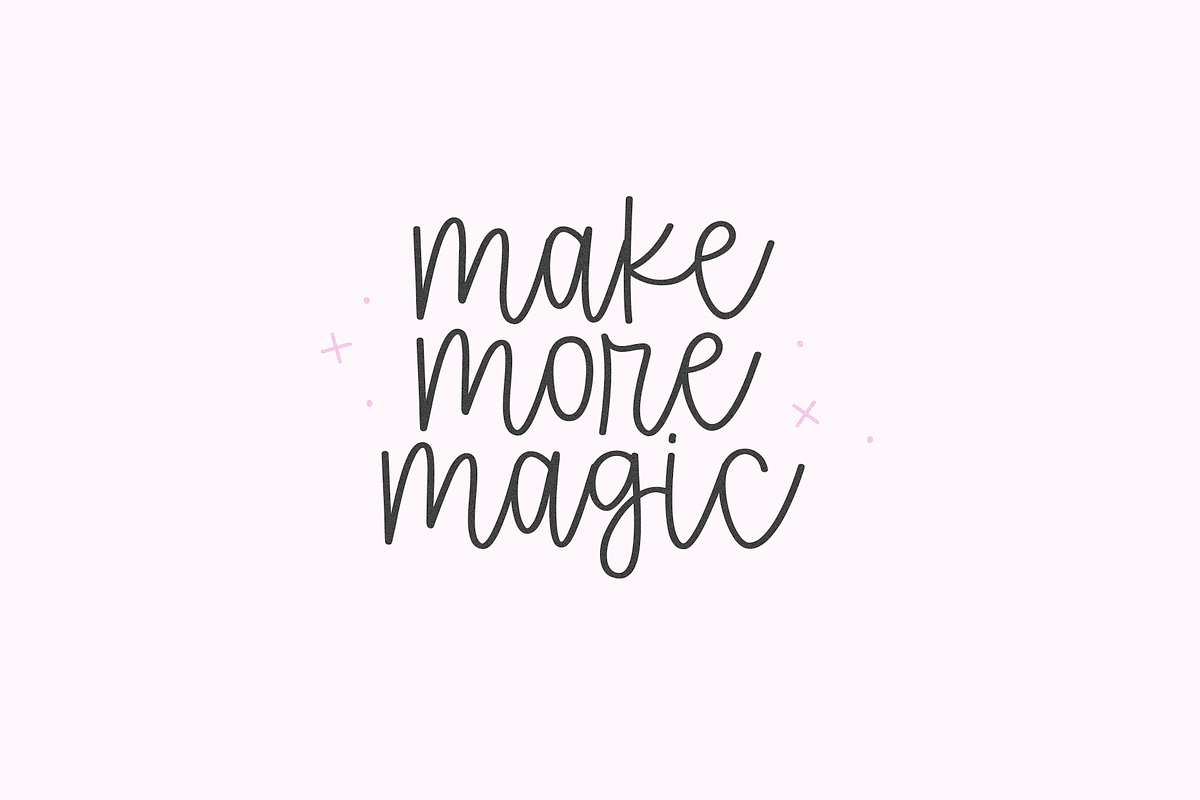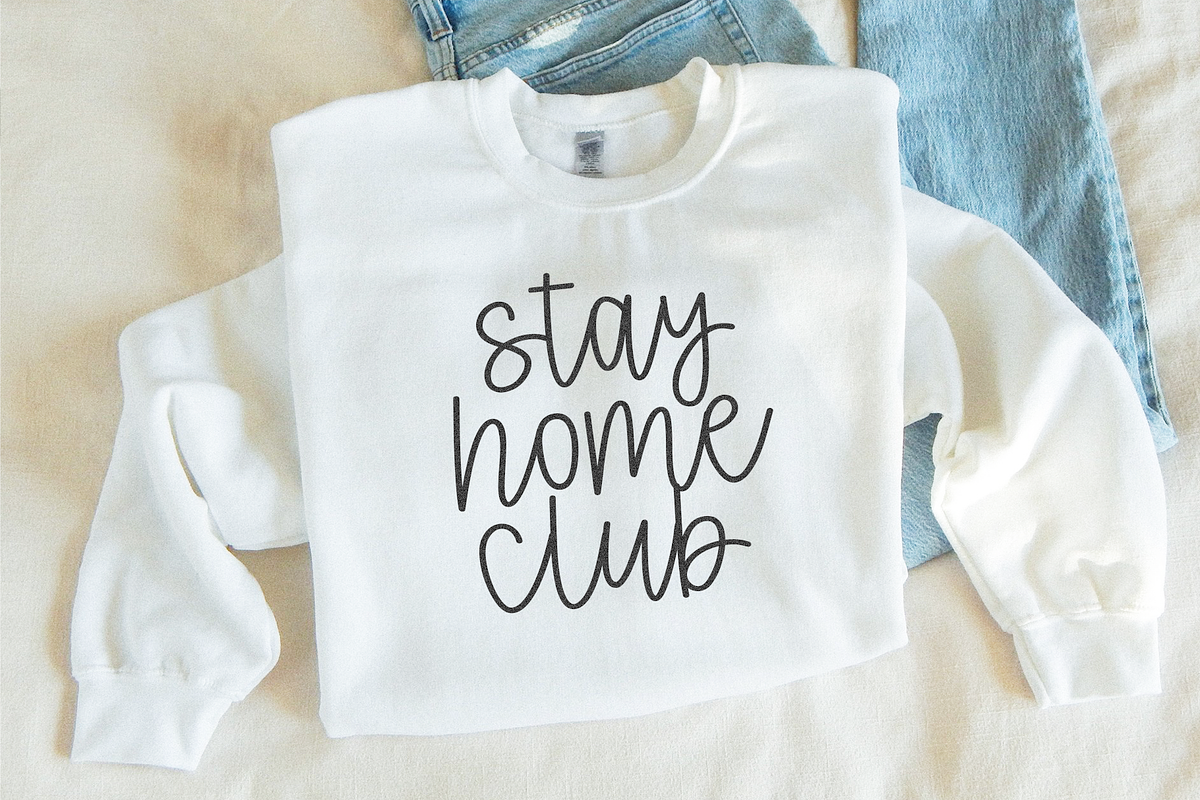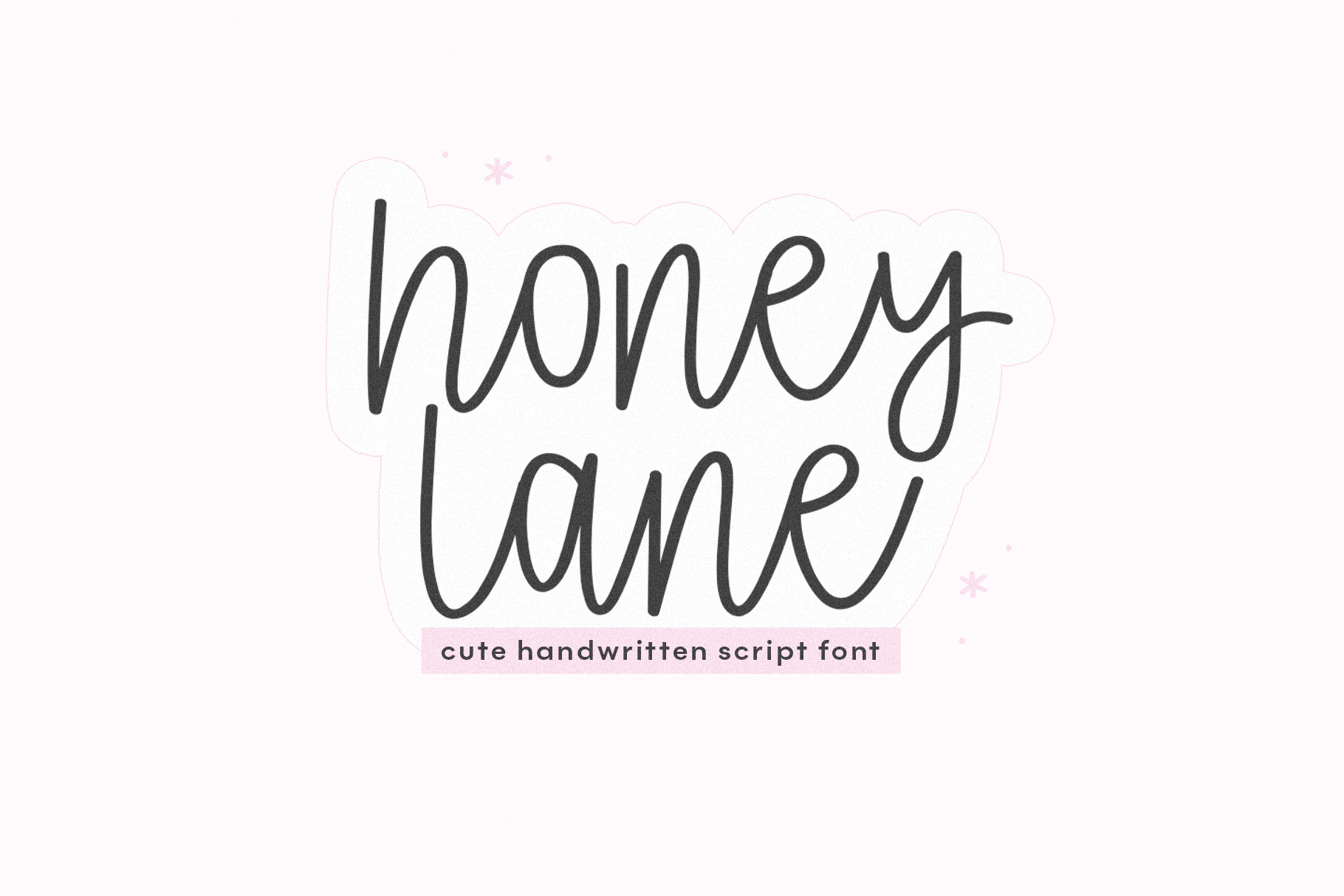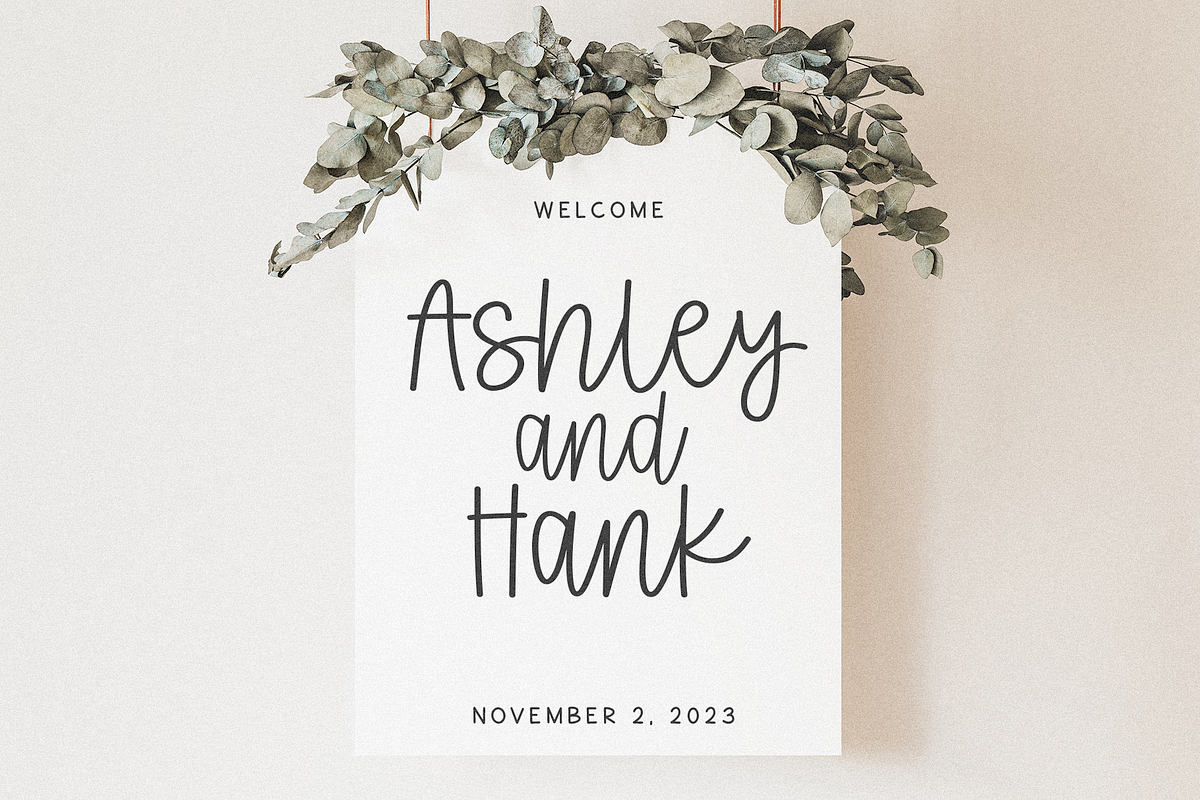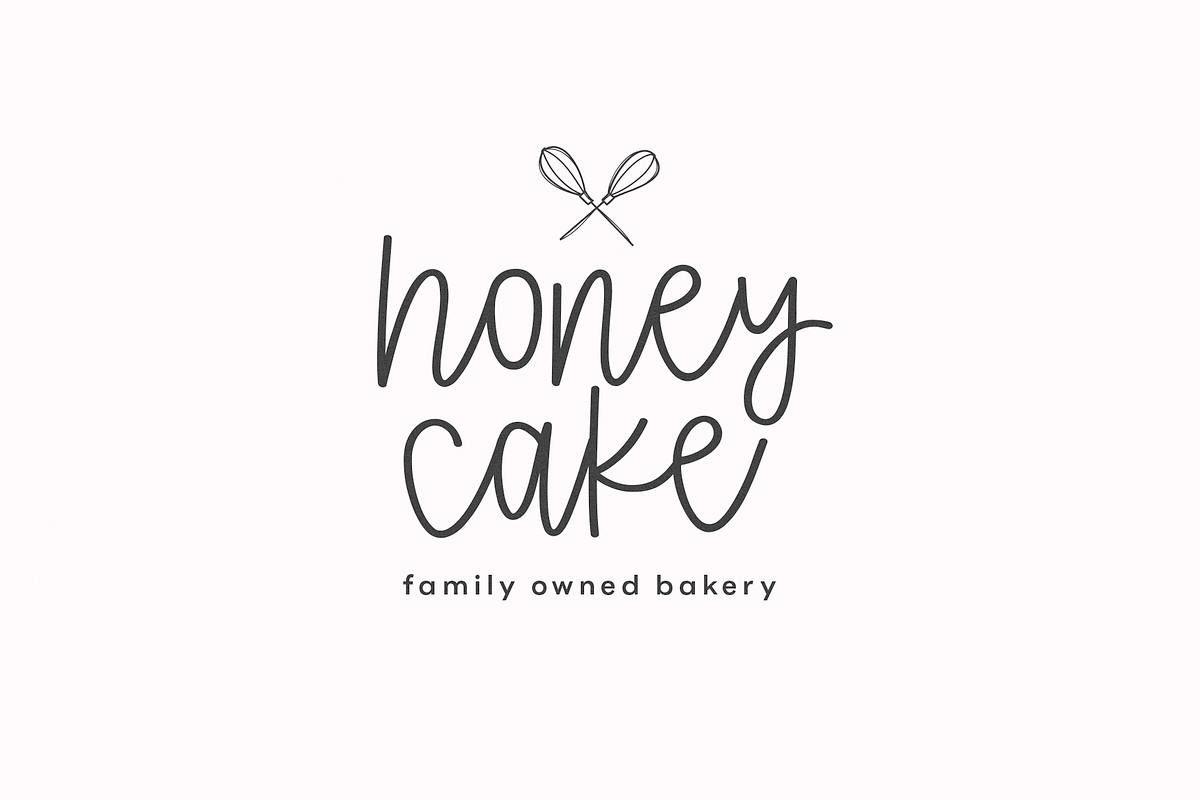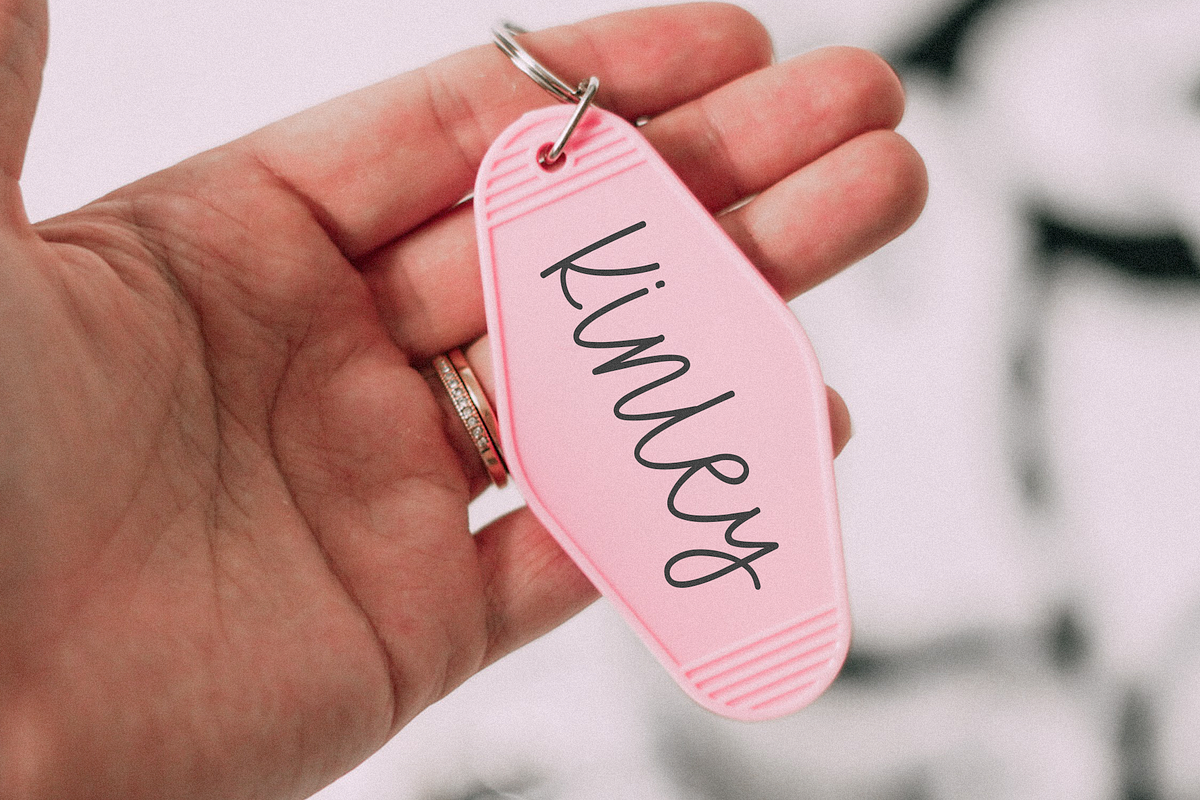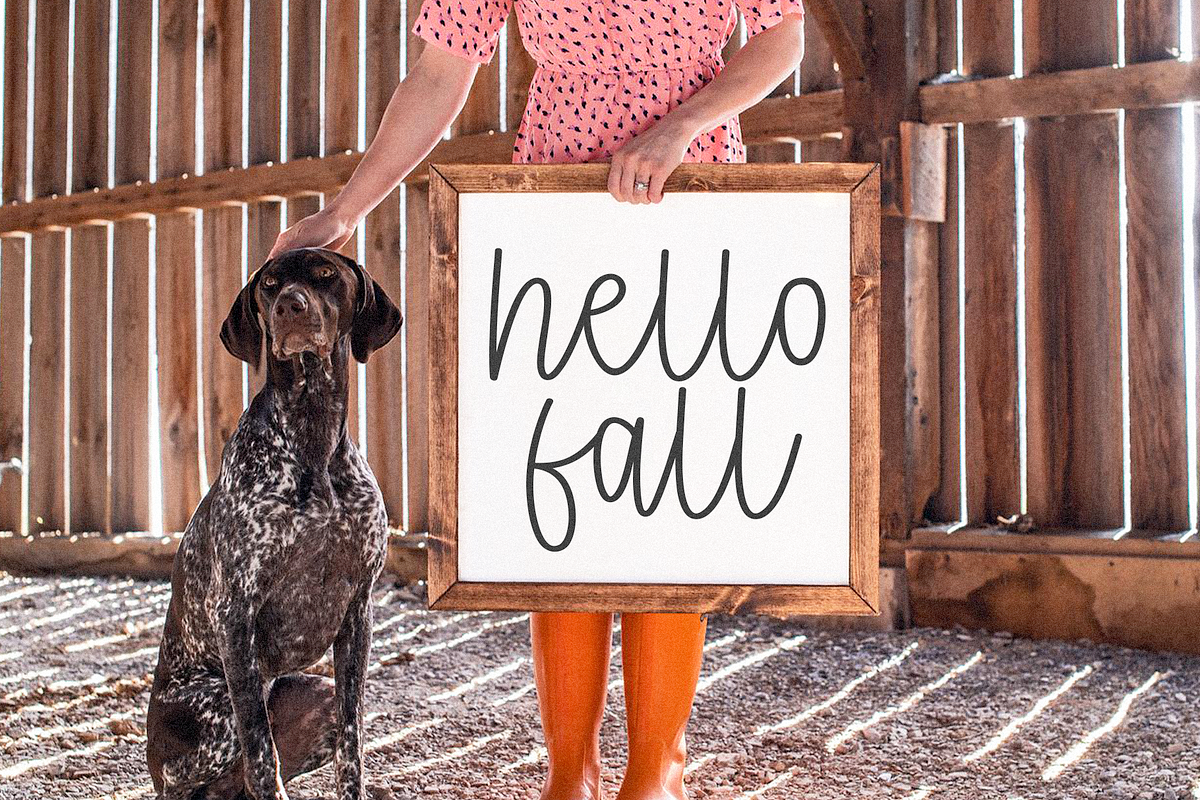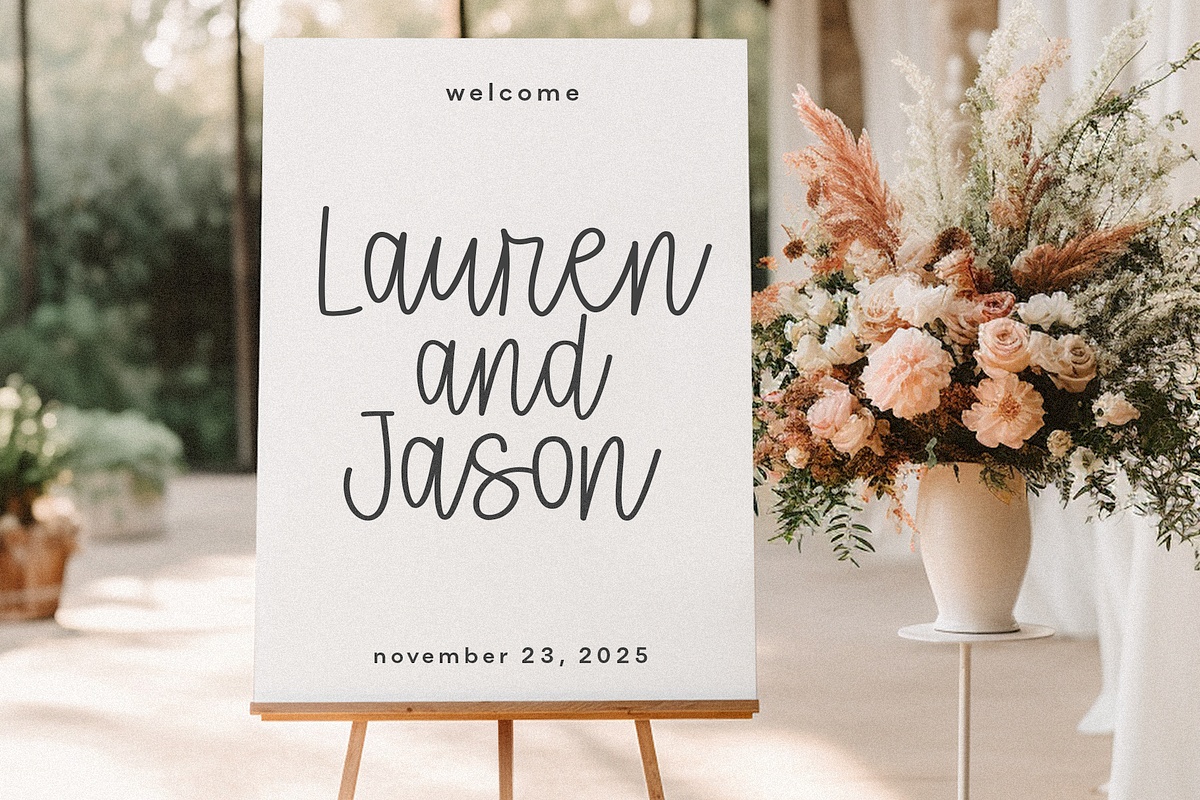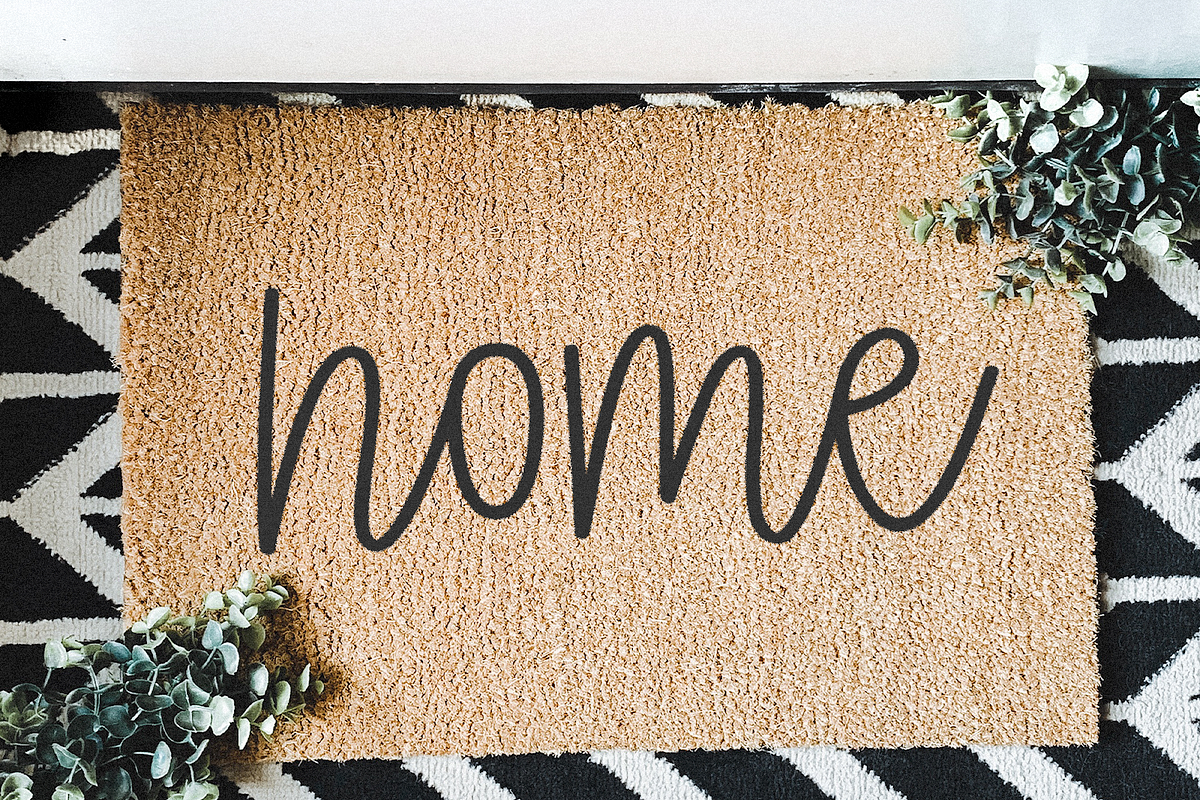
Honey Lane | Cute Script Font
Honey Lane is a cute handwritten script font.
This font is perfect for logos, branding, farmhouse designs, cricut projects, svg files, canva, goodnotes, stickers, mugs and more!